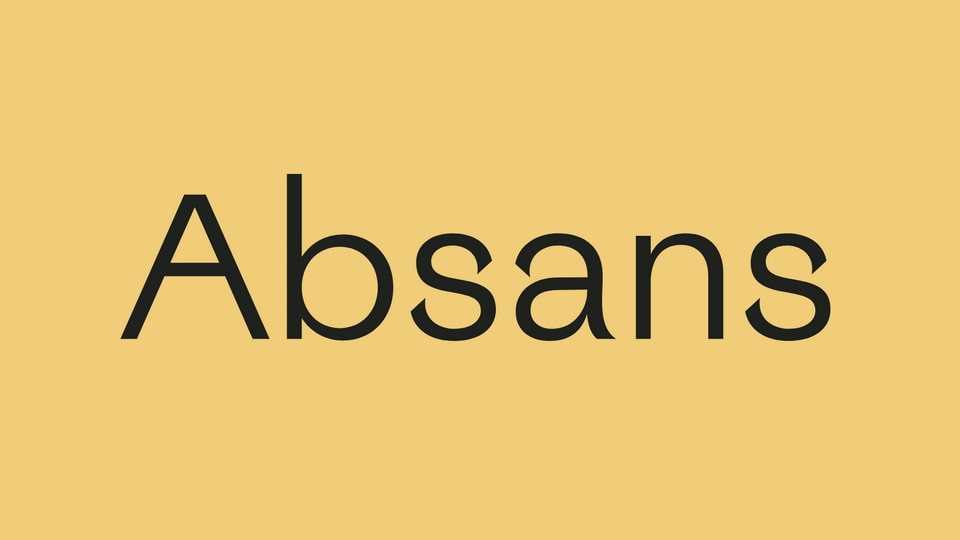
Download Absans font, a universal and unassuming communication tool, that clearly nods to early 20th Century grotesque fonts, with their quaint yet captivating flaws.
Designer: Valerio Monopoli